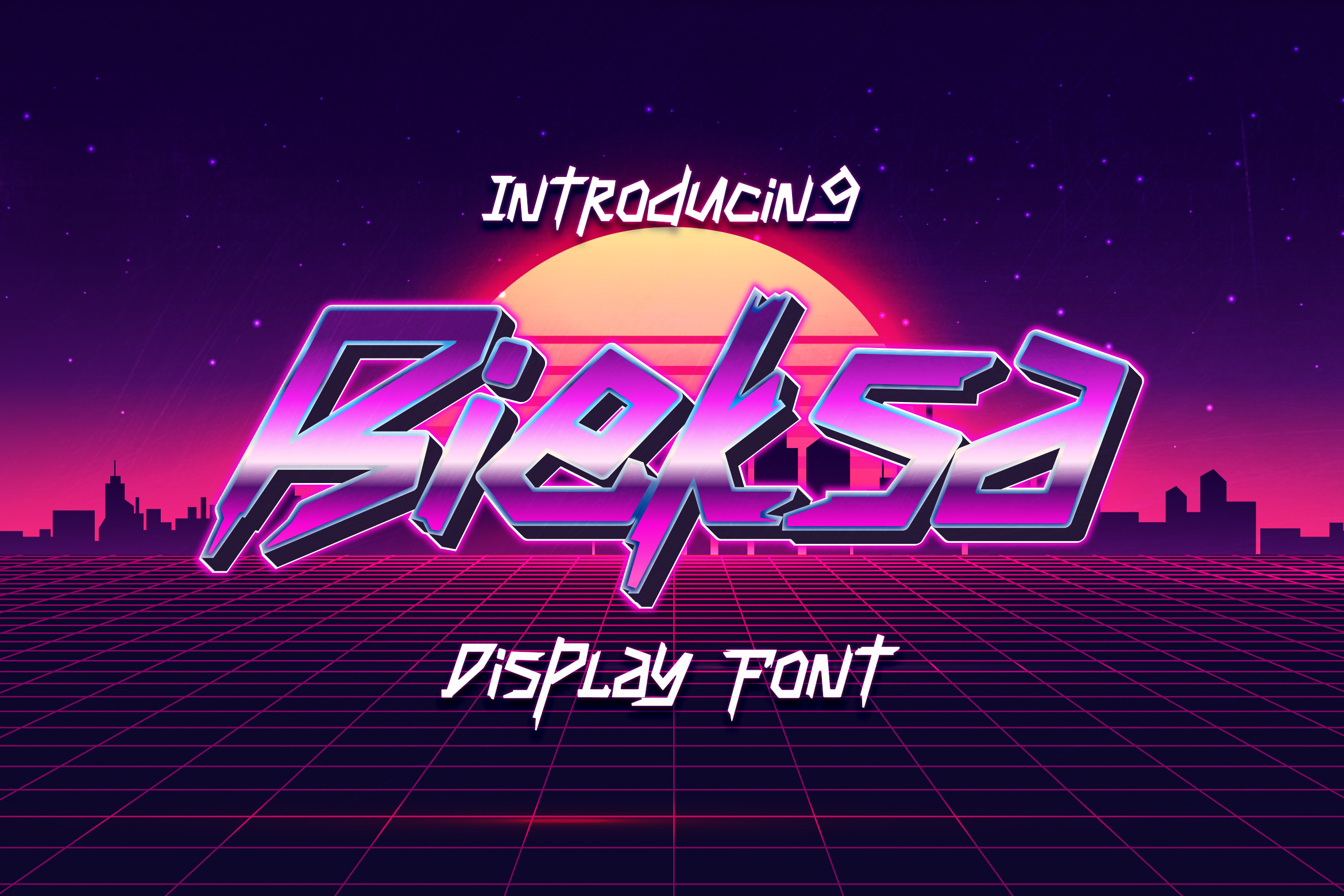
Bieksa - Sharp Display Font
Bieksa is a techno and sharp display font. It is suitable for any branding, product packaging, invitation, quote, t-shirt, label, poster, logo, modern music album, that you wish to develop.